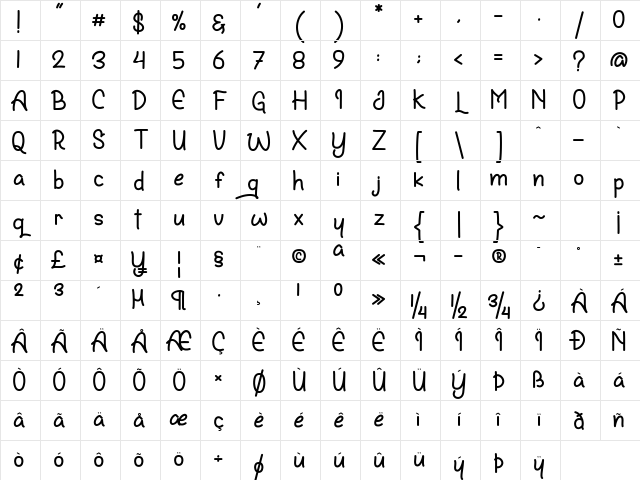
Complete Enjoy and Relax Regular glyph index. Displaying only characters natively supported by Enjoy and Relax Regular font.
Enjoy and Relax is a composed and adaptable typeface that performs quietly and consistently across a wide range of design contexts.